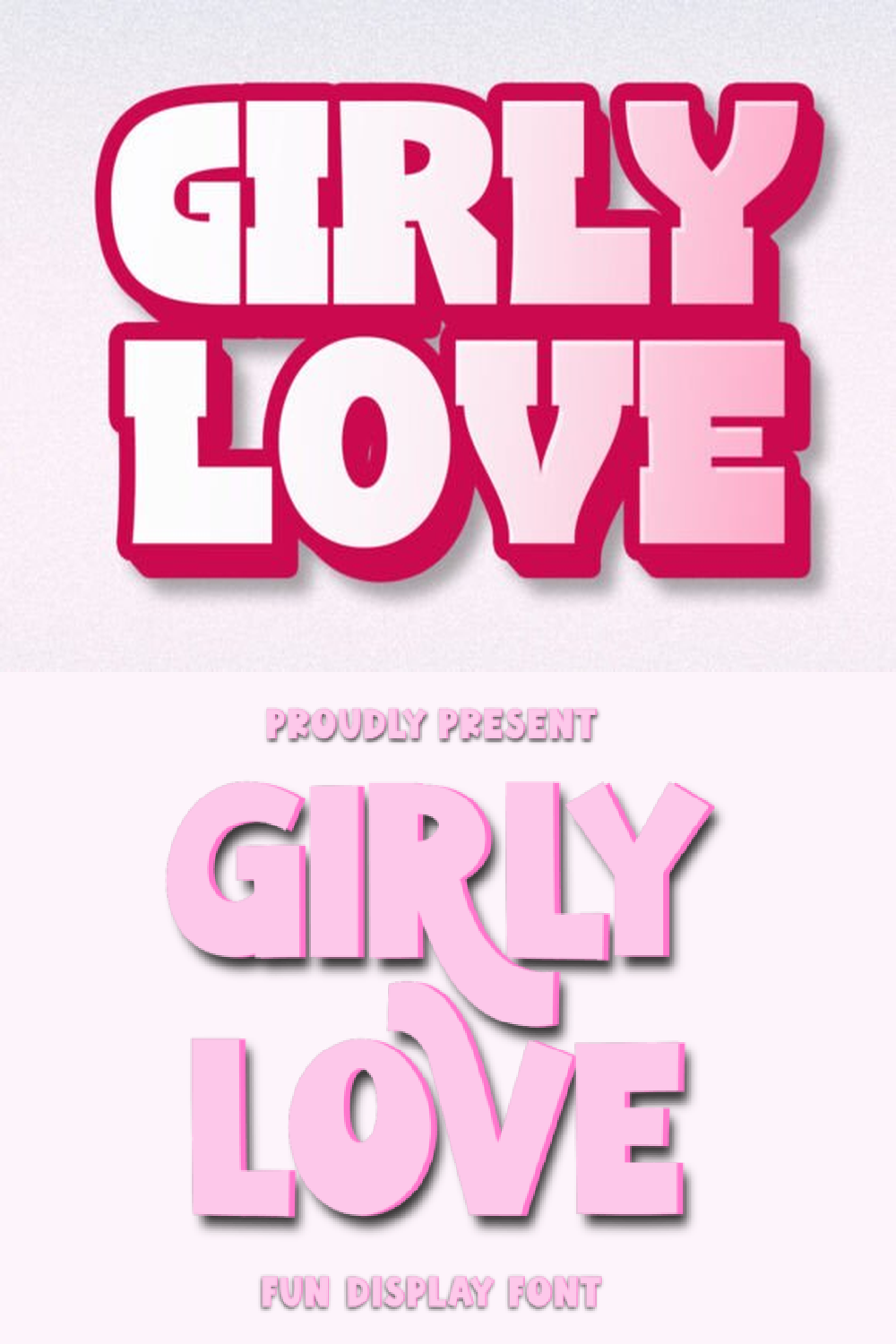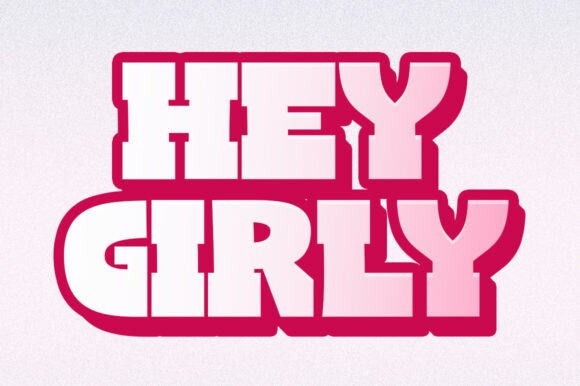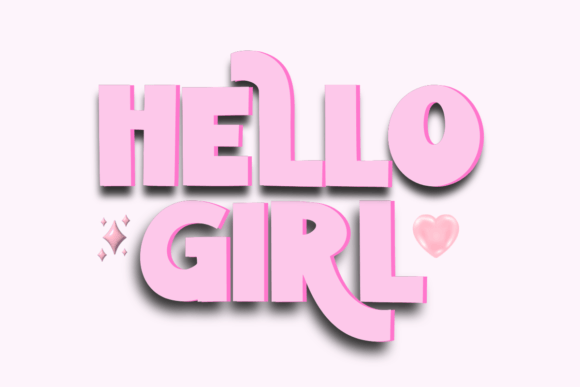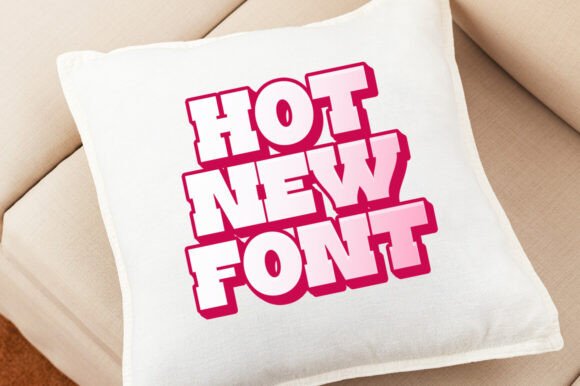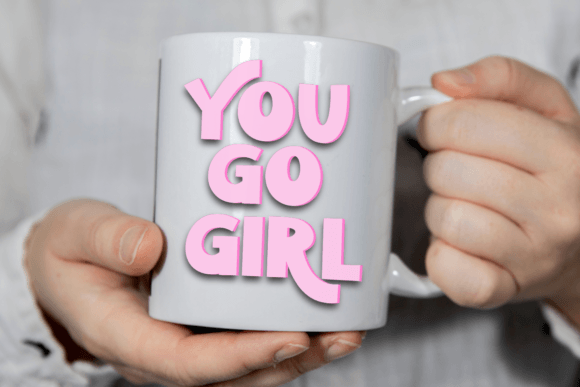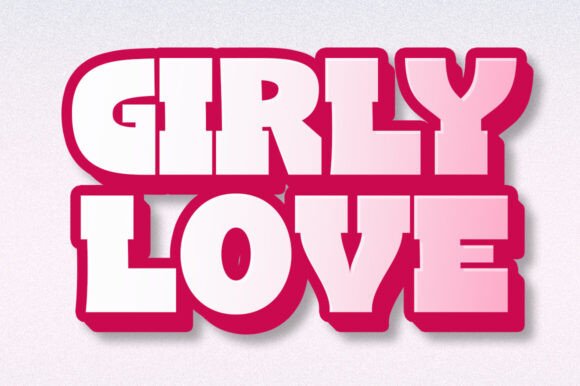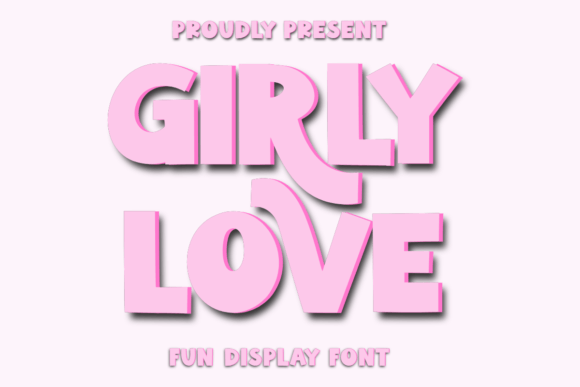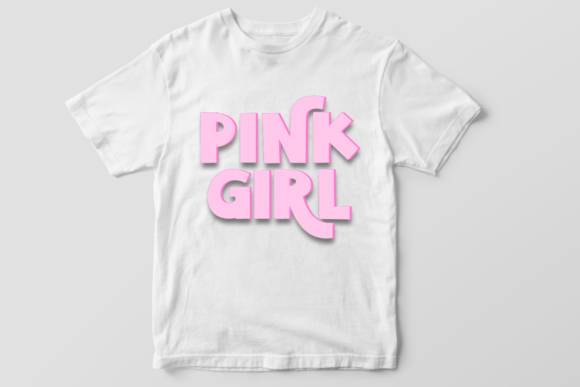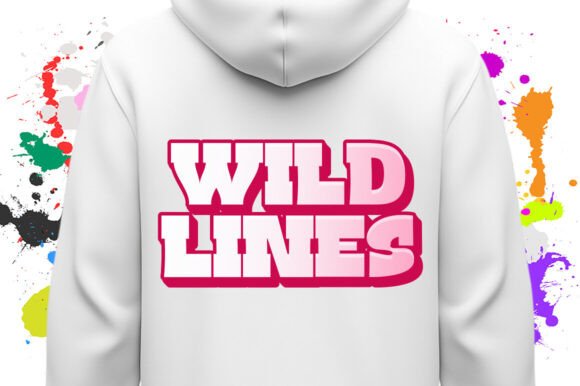
Girly Love Font
About the Girly Love Font
Add a touch of class to your work with the Girly Love Font, a truly exceptional typeface. ‘Girly Love.’ Boasting a delightful fusion of both lowercase and uppercase letters, this empowering display font tells a captivating story on any page. With its playful personality, it becomes the perfect companion for a plethora of crafty endeavors. Let it grace the face of your favorite t-shirts, or add a touch of playfulness to eco-friendly doormats. Have it bring life to your morning brew on a cute mug, or let it introduce a flair of originality to your unique packaging designs. It stands out on sleek drinking glasses and draws attention with attractive posters. Even practical tote bags become charming accessories with its stylish adornment. With its limitless possibilities, ‘Girly Love’ is set to usher a wave of vintage inspiration into your artistic journey. Immerse yourself in its whimsical charm and let ‘Girly Love’ speak volumes about your creativity.